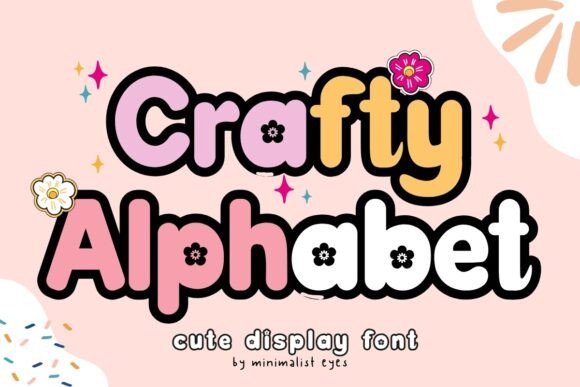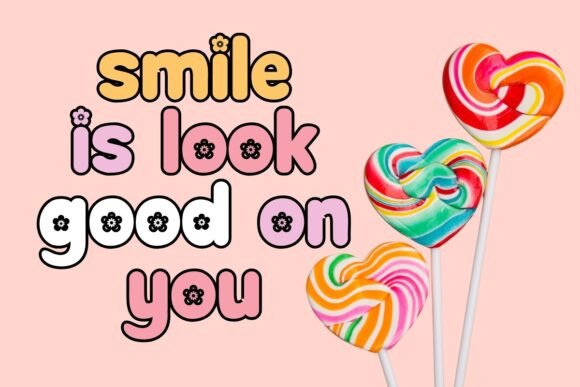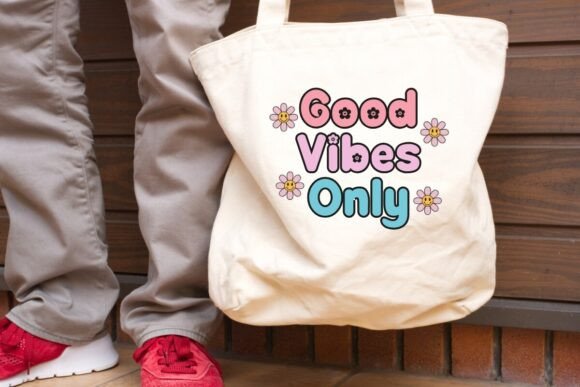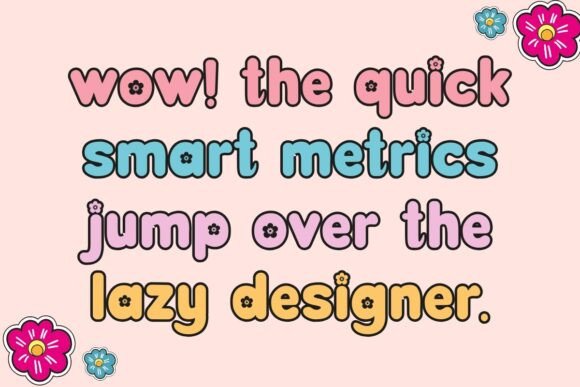
Crafty Alphabet Font
About the Crafty Alphabet Font
The Crafty Alphabet Font is here to transform your projects with its distinctive character and style. Introducing Crafty Alphabet – an enchanting, inventive display font that’s as quirky as it is distinct. Imbued with a playful boldness, this innovative addition can instantly infuse life into your creations. Its unique aesthetics and stunning style serve as the perfect enhancement for your cherished designs. Let Crafty Alphabet inspire your creative journey as it effortlessly weaves its charm through every project.
Crafty Alphabet’s playful boldness makes it ideal for headlines, logos, short-form text in posters, and packaging design where its quirky charm can shine. It’s less suitable for body text or UI elements due to its unique letterforms which can hinder readability in longer passages.
Its personality is best described as bold and friendly, with a touch of vintage whimsy. Brands targeting a younger demographic, emphasizing craft, playfulness, or a handmade aesthetic would find it particularly effective.
Pairing Crafty Alphabet with a clean sans-serif like Open Sans for body text or a classic serif like Garamond for a more refined feel would create a strong visual balance. Consider using a script font like Allura for added elegance in specific applications.
Crafty Alphabet Font Usage Examples
Crafty Alphabet Font Example